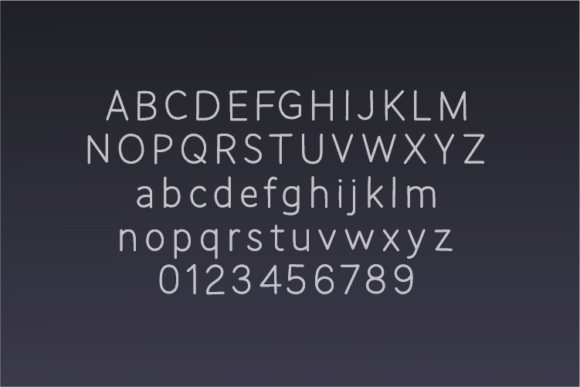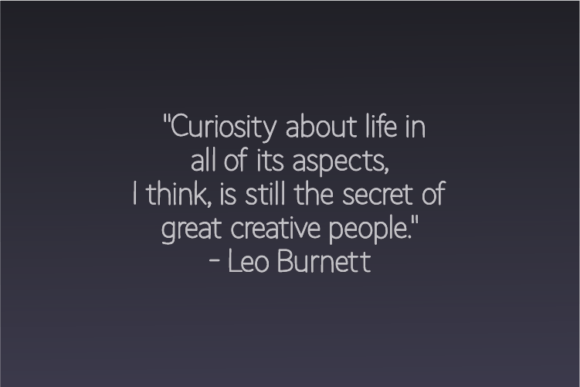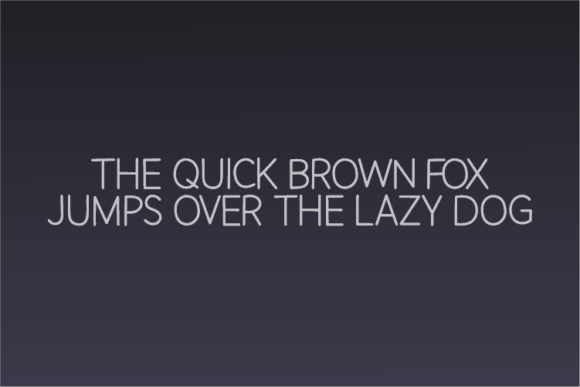
The Applemoon Font: A Designer’s New Best Friend
I’ll never forget the time I was working on a craft project for a client, and I just couldn’t seem to find the right font. I had tried a dozen different options, but nothing seemed to fit the bill. That was until I stumbled upon the Applemoon font. This casual and neat sans serif font has been a game-changer for my designs, and I’m excited to share it with you.
I’ve been using the Applemoon font for a while now, and I have to say, I’m thoroughly impressed. Here are a few things that I love about this font:
• ✨ **Natural and elegant style**: The Applemoon font has a unique, organic feel that sets it apart from other sans serif fonts.
• ✅ **Highly versatile**: This font works beautifully for both digital and print projects, and it’s perfect for a wide range of applications, from crafts to branding.
• 💡 **Easy to read**: The Applemoon font is clear and legible, even at small sizes, making it perfect for body text.
• 🤔 **Limited character set**: While the Applemoon font has a wide range of characters, it’s not a full Unicode font, so you may encounter some limitations when working with non-English languages.
• ⚠️ **Not ideal for body text in long documents**: While the font is easy to read, it’s not designed for long-form reading, so you may want to choose a different font for documents like ebooks or reports.
The Story Behind Applemoon Font
The Applemoon font was designed by a team of typographers who wanted to create a font that was both elegant and approachable. Inspired by the natural world, they crafted a font that’s perfect for crafts, branding, and digital projects. While the exact design process is a trade secret, it’s clear that the team poured their hearts and souls into creating a truly unique font.
What is the Applemoon font best used for? The Applemoon font is perfect for crafts, branding, and digital projects that require a natural and elegant style.
Is the Applemoon font available in multiple languages? The Applemoon font has a limited character set, but it’s available in several languages, including English, Spanish, and French.